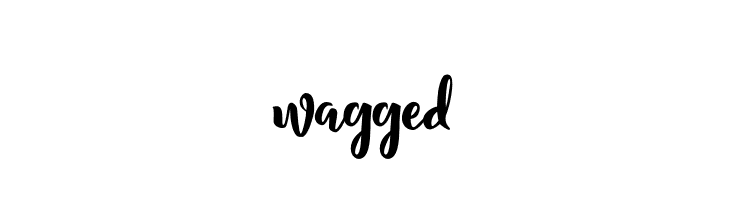
A sleek, modern italic font with smooth, elongated letterforms.
A lively, cursive font with flowing, expressive characters.
A distressed, typewriter-style font with a grunge, vintage look.
A bold, modern font with a geometric and condensed style.
A modern, geometric font with bold lines and boxed characters.
A playful, bubble-like font with a retro vibe.
A modern, geometric sans-serif font with a clean and uniform appearance.
A classic serif font with elegant and bold characteristics.
A playful, cursive script with bold, flowing strokes.
A bold, modern handwritten font with a playful and dynamic style.